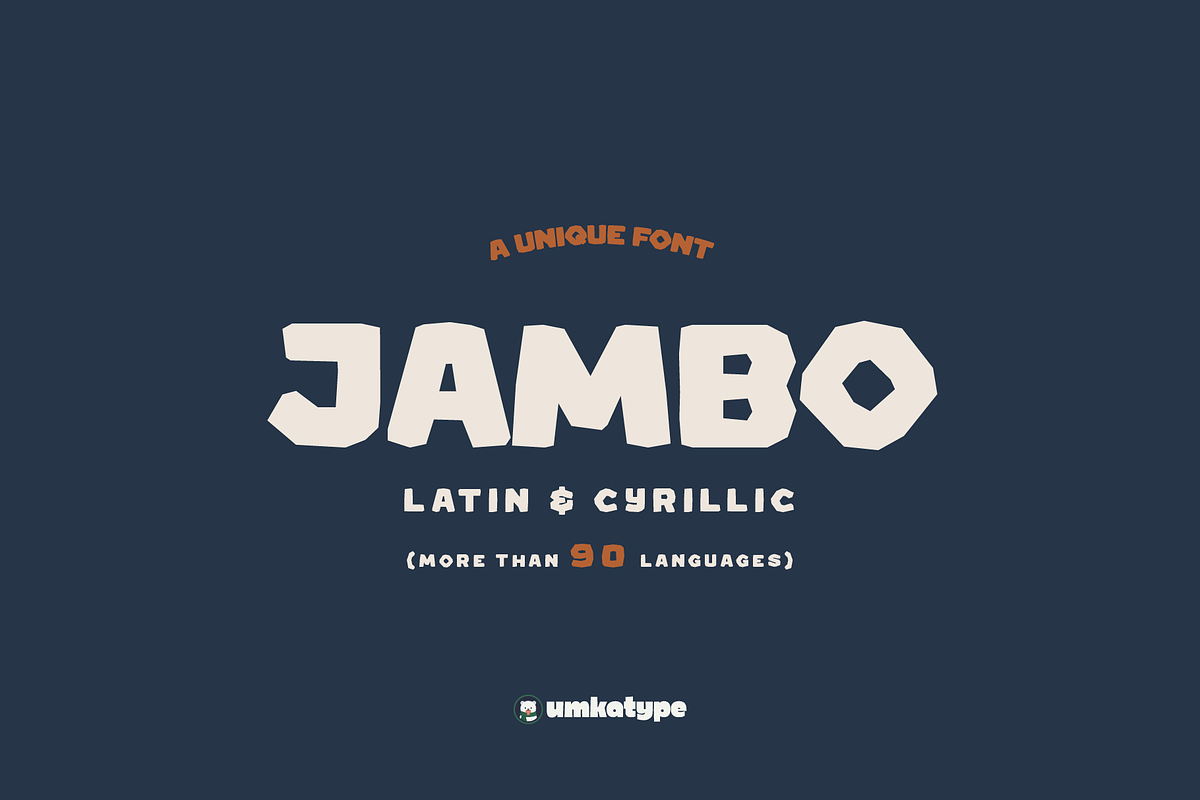
Jambo Bold Logo Font Free Download is a striking, high-impact typeface designed specifically for creating bold logos and memorable brand identities. With its thick letterforms, geometric structure, and modern appeal, Jambo is perfect for business logos, marketing materials, event posters, and any design project that requires a strong visual presence.
Its robust and dynamic style makes it ideal for projects that demand attention and convey confidence. Whether you're working on a brand refresh, creating impactful signage, or designing eye-catching promotional content, Jambo Bold will make your typography stand out.
Designers love Jambo Bold for its versatility, readability, and commanding presence across both digital and print media. Ready to make a bold statement with your design? Download Jambo Bold Logo Font Free Download and give your branding the impact it deserves.